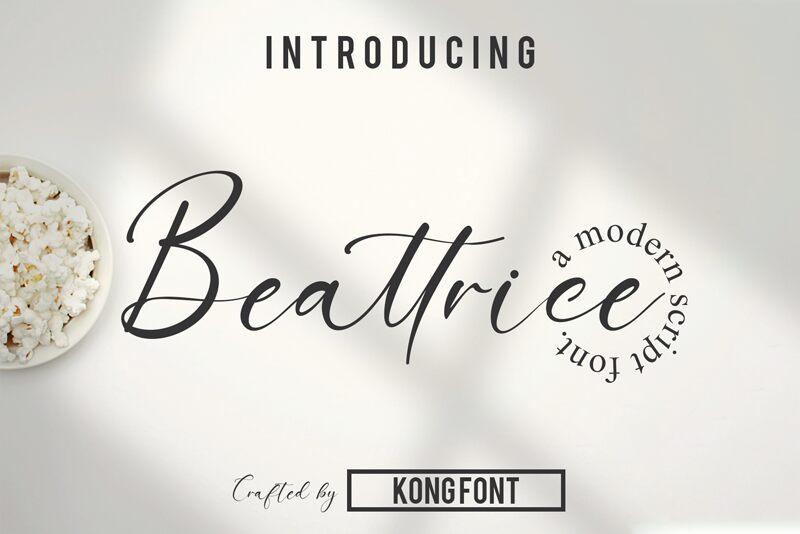
Beattrice font family by Kong Font adopts a graceful stylish aesthetic similar to that of a flawless signature. The letters are perfectly elegant, with fluid letter connects that make this universal typeface suitable for any project. Make the best of the Beattrice font styles by using them individually or mixing and matching them as you prefer. This free handwritten family comes with all the characters you might need to create elegant modern designs with a human touch.
Use Beattrice font for posters, ads, packaging projects, websites, and applications. Design greeting cards, invitations, and handwritten letters. Combine this typeface with classic ones in modern professional projects. Apply it to logos and branding projects, or use it for headlines and book covers.